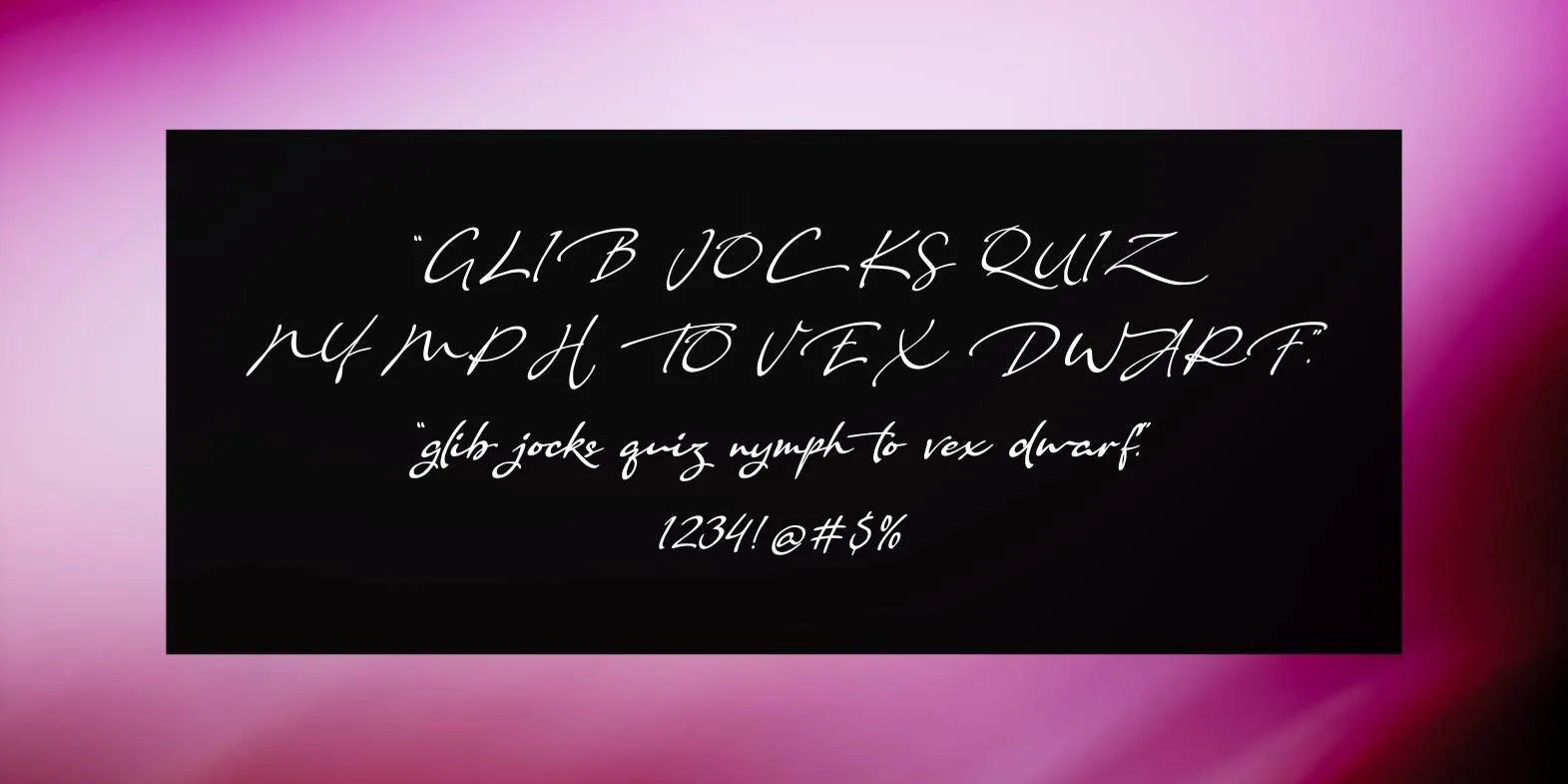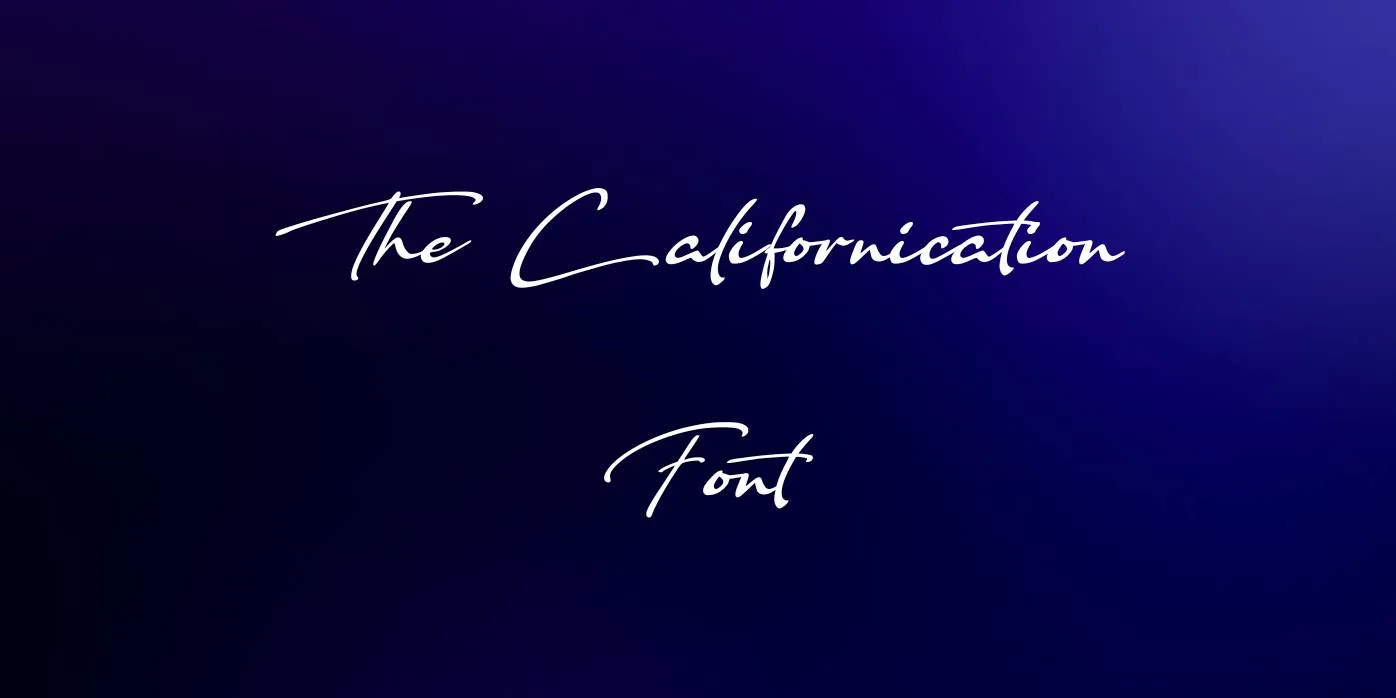
The Californication Font
The Californication Font is a handwritten typeface and the designer of this typeface is Octotype. This is a handwritten typeface that has stylish, sight-loving, and long-spaced characters. The typeface give a best quality after making a pair with other font. So, i recommend pairing it with redstock font.